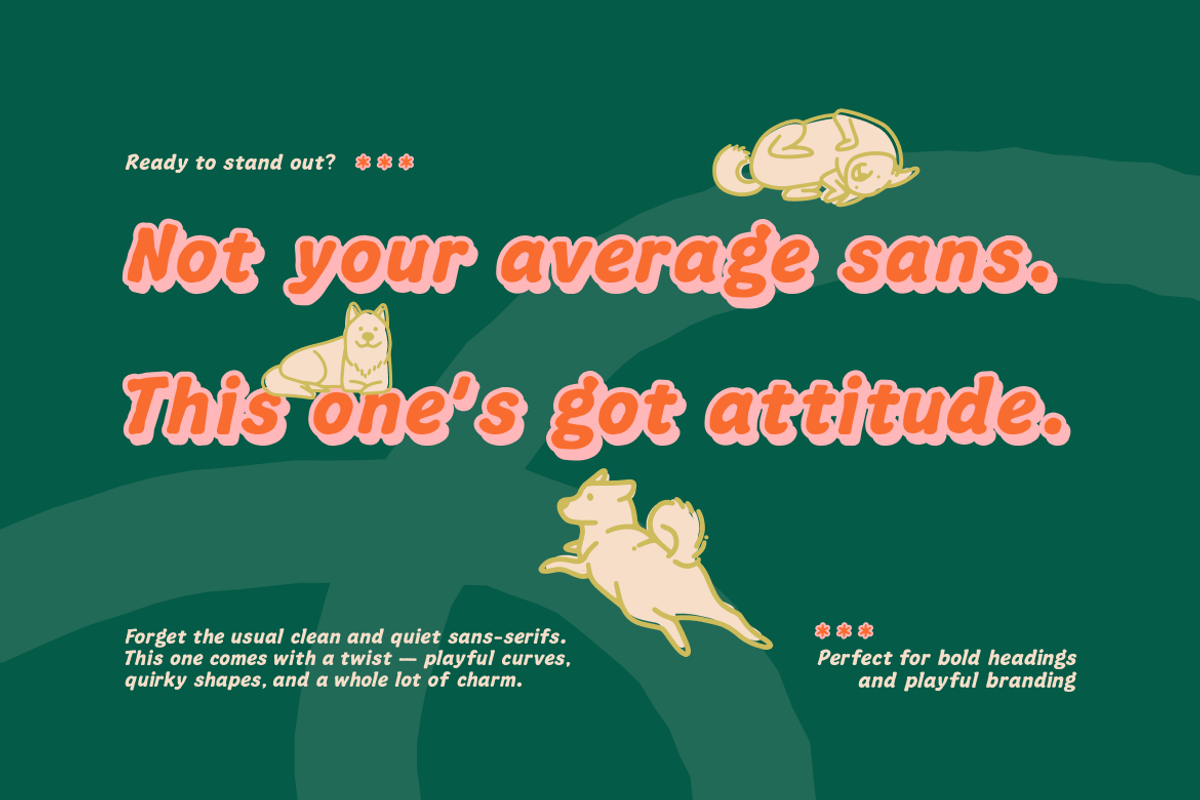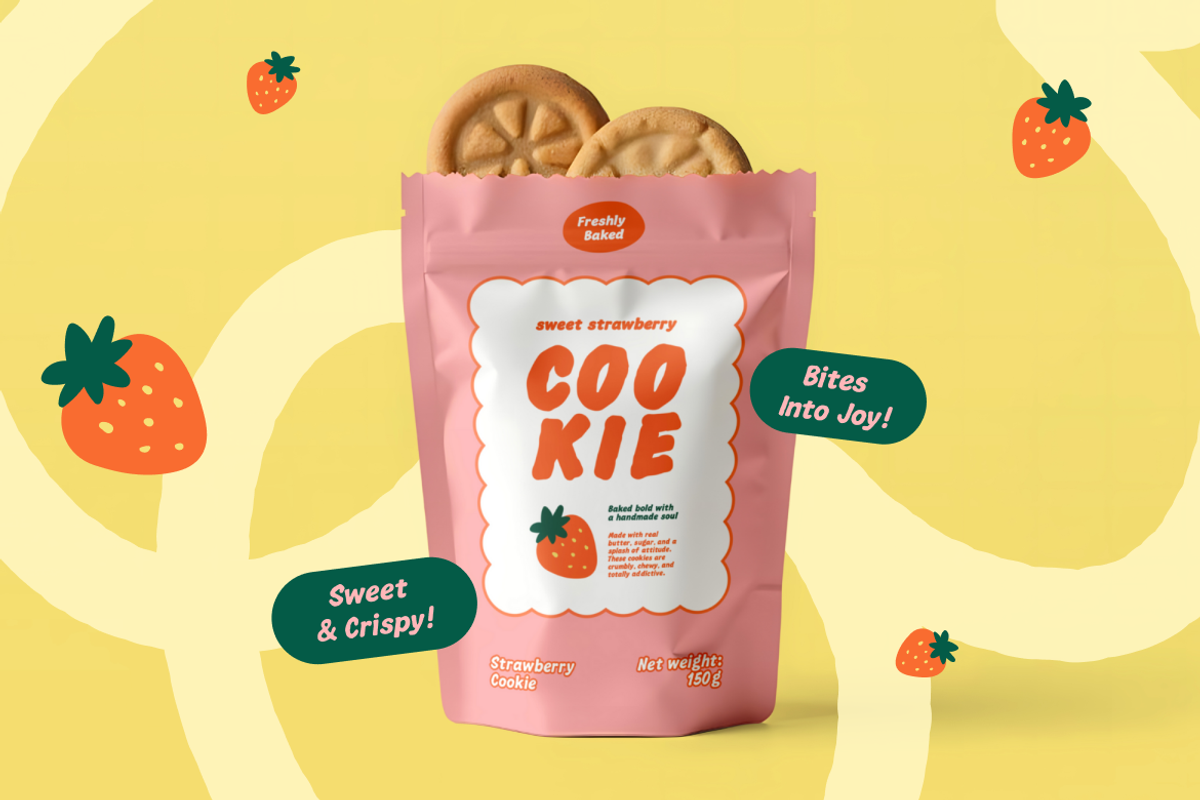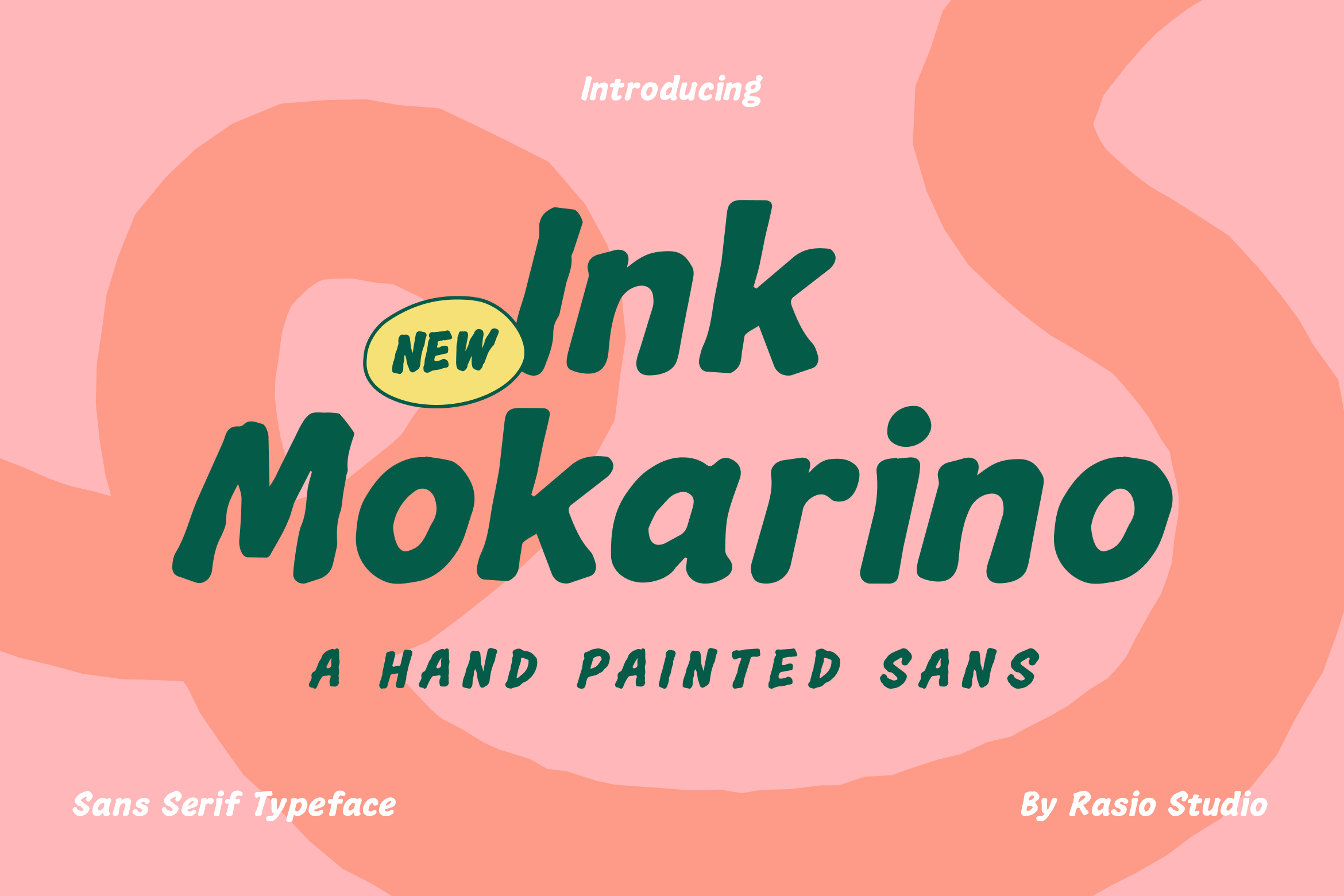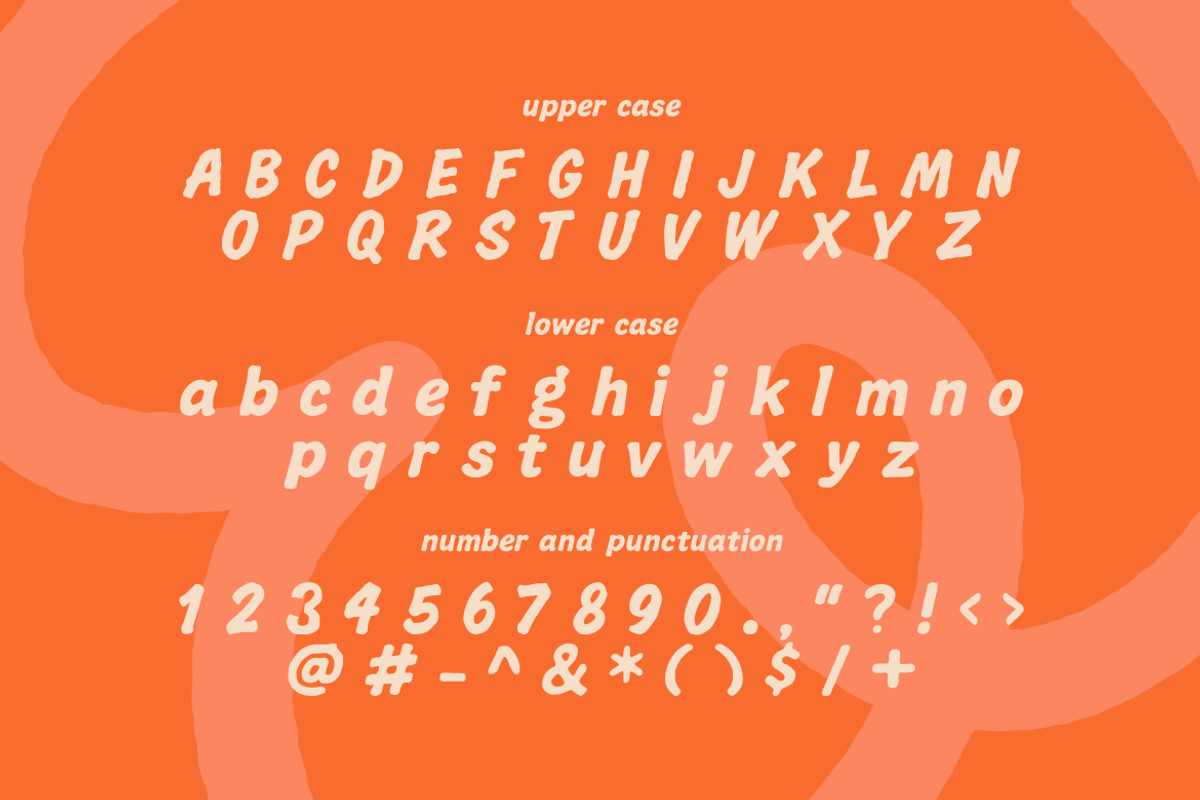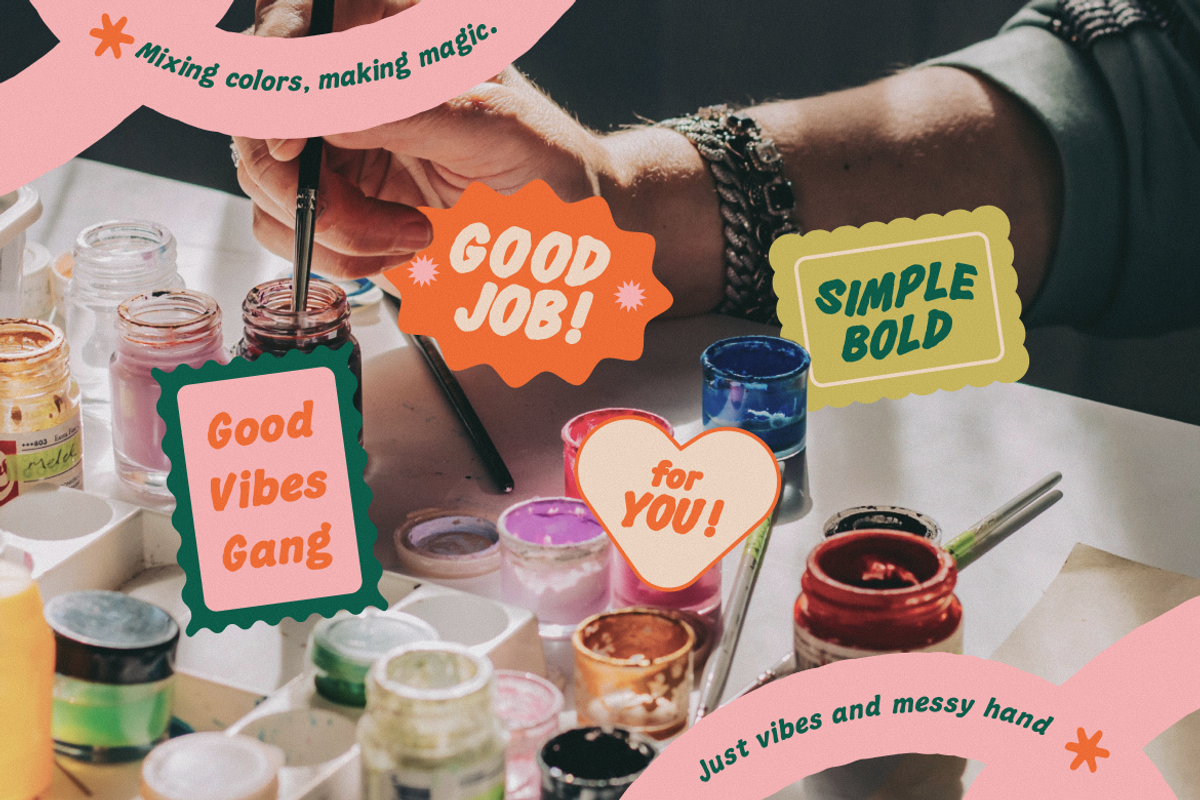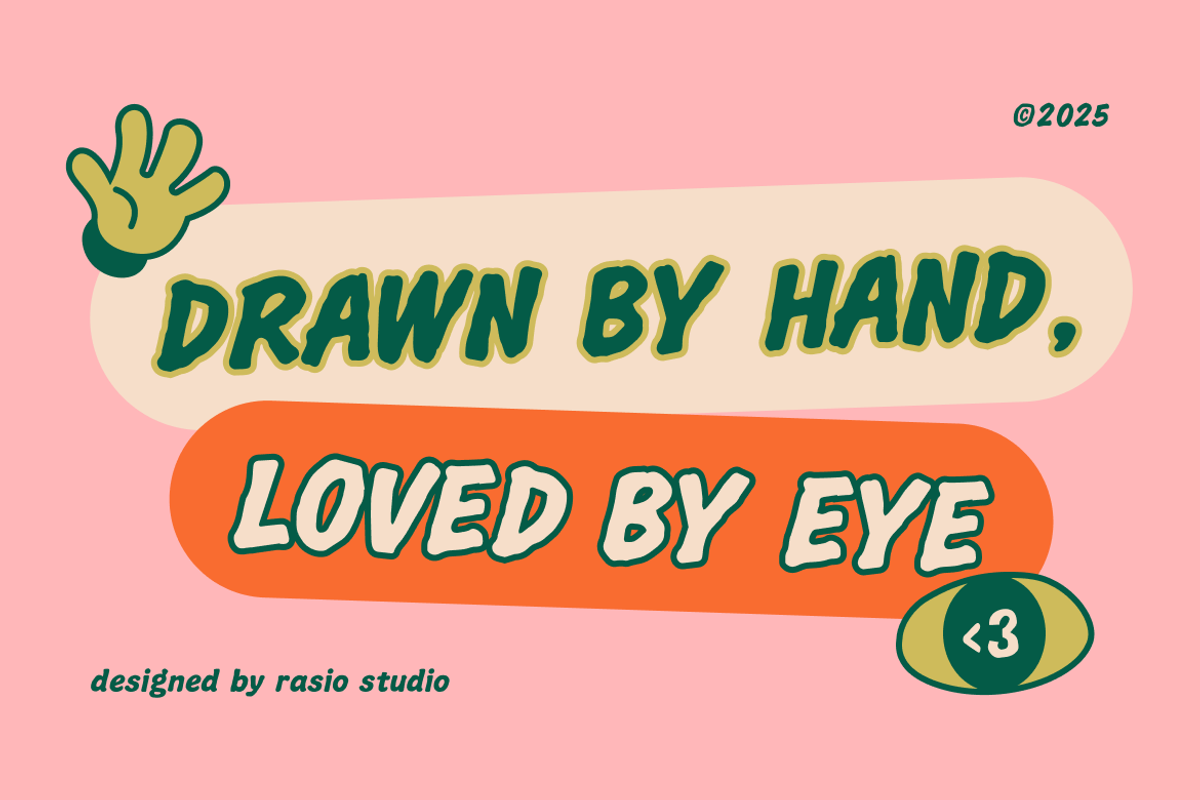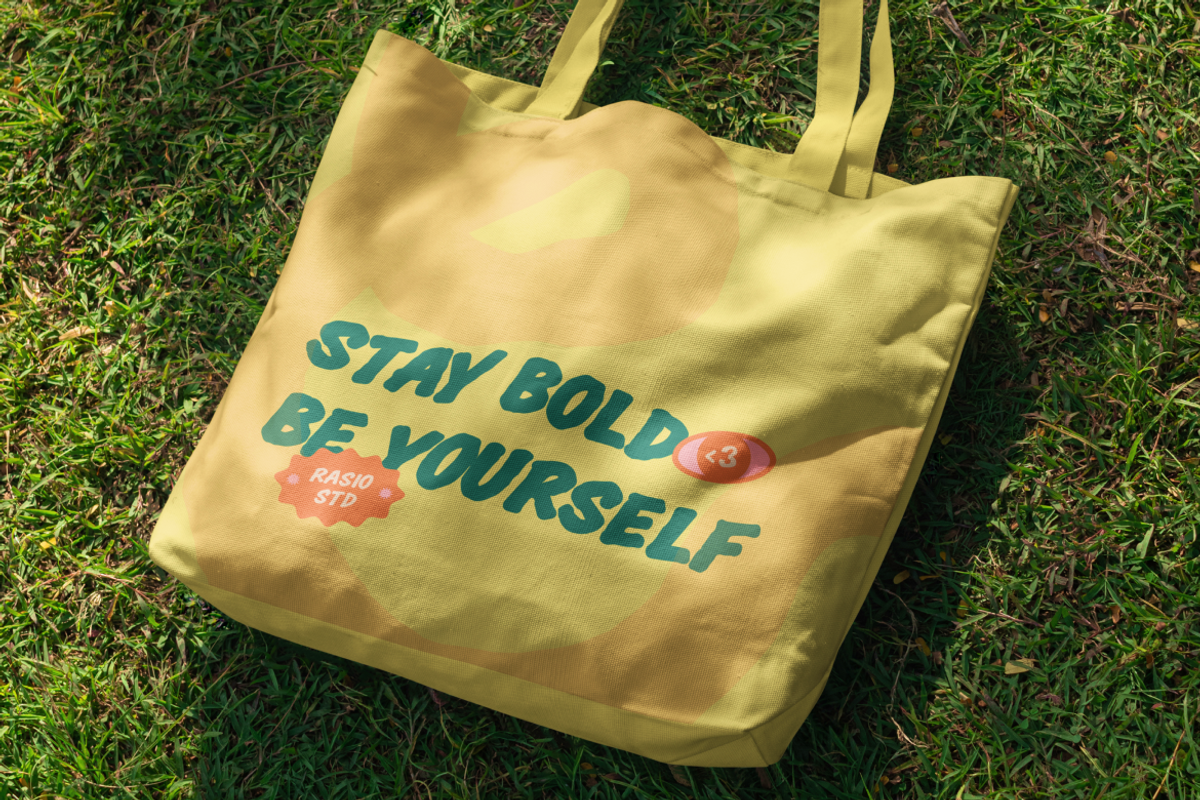
Ink Mokarino Hand Painted Sans Font
Ink Mokarino is a hand‑painted sans serif display font with organic brush‑inspired shapes that evoke creativity, warmth, and personality. Crafted to feel both artisanal and contemporary, this typeface includes uppercase and lowercase letters, numerals, punctuation, and essential symbols. Its imperfect, hand‑drawn aesthetic gives text a lively, expressive character while remaining highly readable across digital and print applications.
Ink Mokarino is ideal for creatives and designers who want to inject personality and artistic flair into their projects. Its hand‑painted feel makes it particularly suitable for posters, branding for creative businesses, lifestyle packaging, social media graphics, album artwork, children’s products, and artisan product labels.
- Hand-painted sans serif with organic, brush-inspired strokes
- Slightly irregular letterforms for a natural, human touch
- Smooth curves and rounded edges to enhance friendliness
- Balanced weight for clear legibility at various sizes
- Casual rhythm and soft contrast, ideal for expressive headlines
- Brand identity systems aiming for a friendly yet professional feel
- UI/UX design templates for modern apps, software, and tech platforms
- Editorial layouts, lifestyle magazines, and minimalist publishing projects
- Product packaging and labeling that favor clean, approachable aesthetics
- Social media templates, promo kits, and digital marketing assets
Draw attention the hand-painted way, Ink Mokarino brings charm to every word